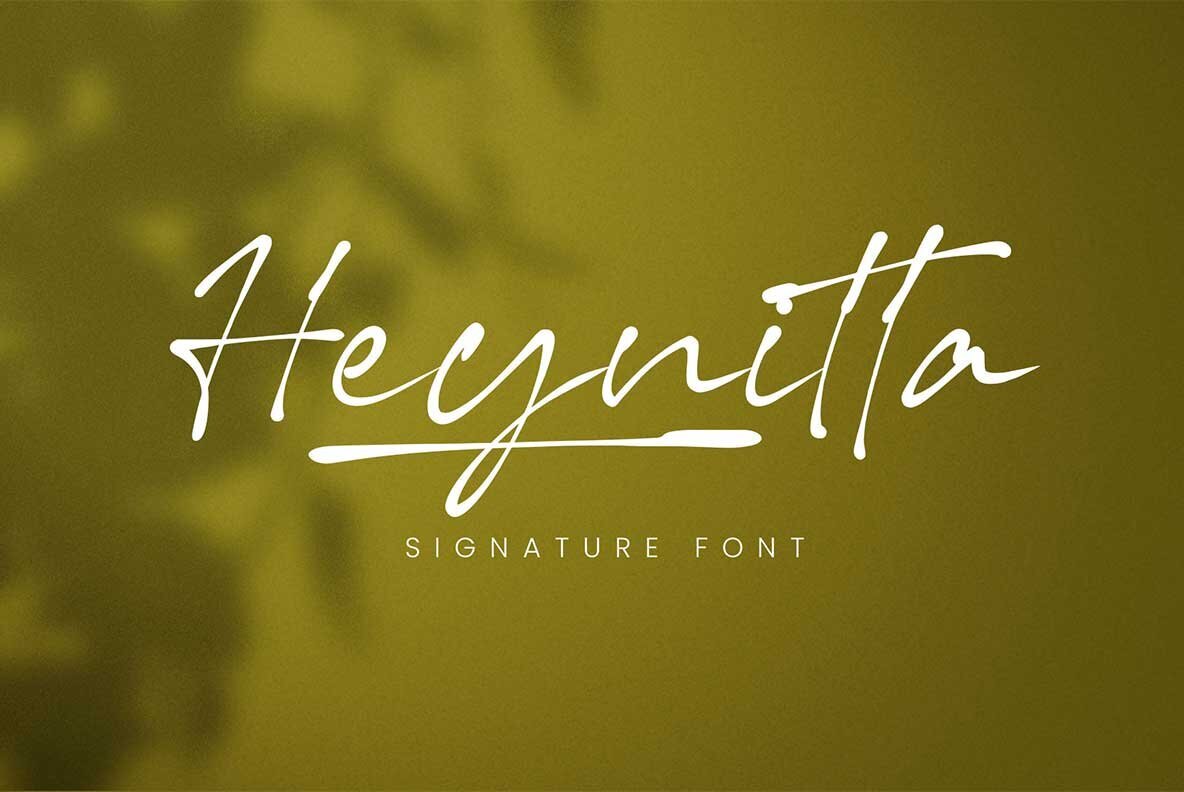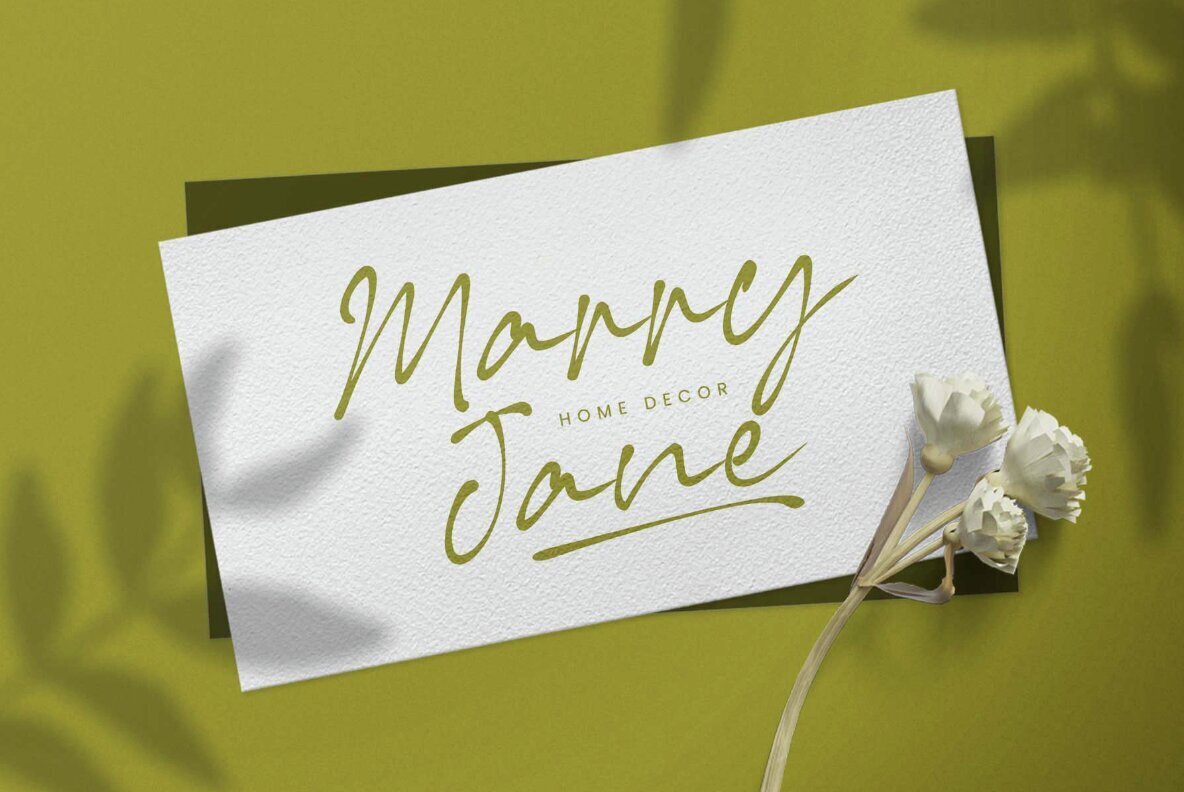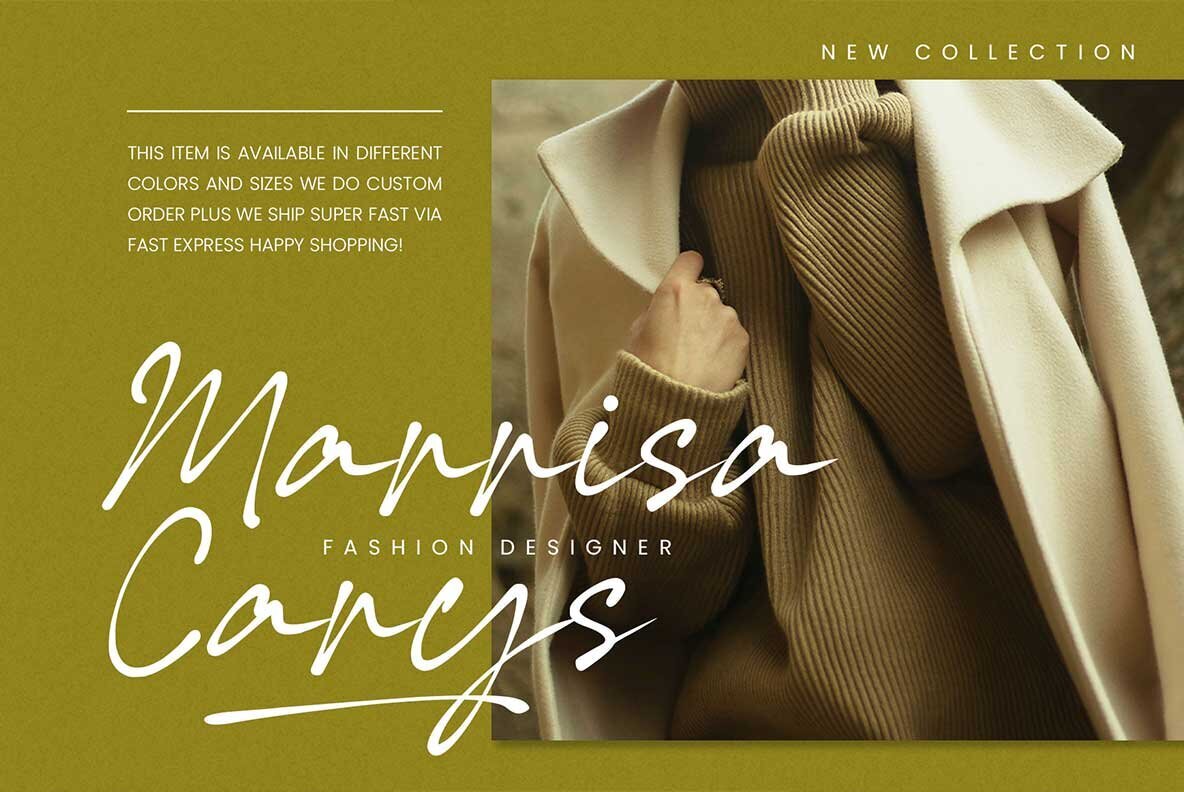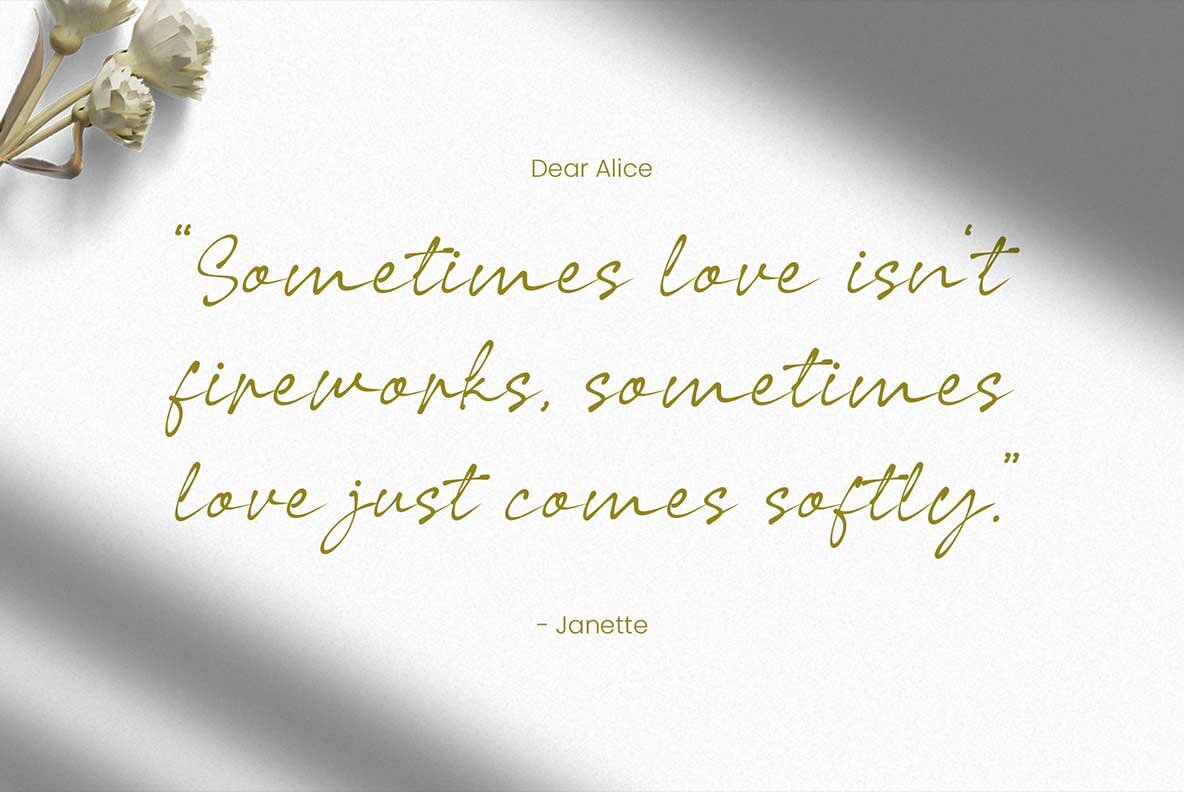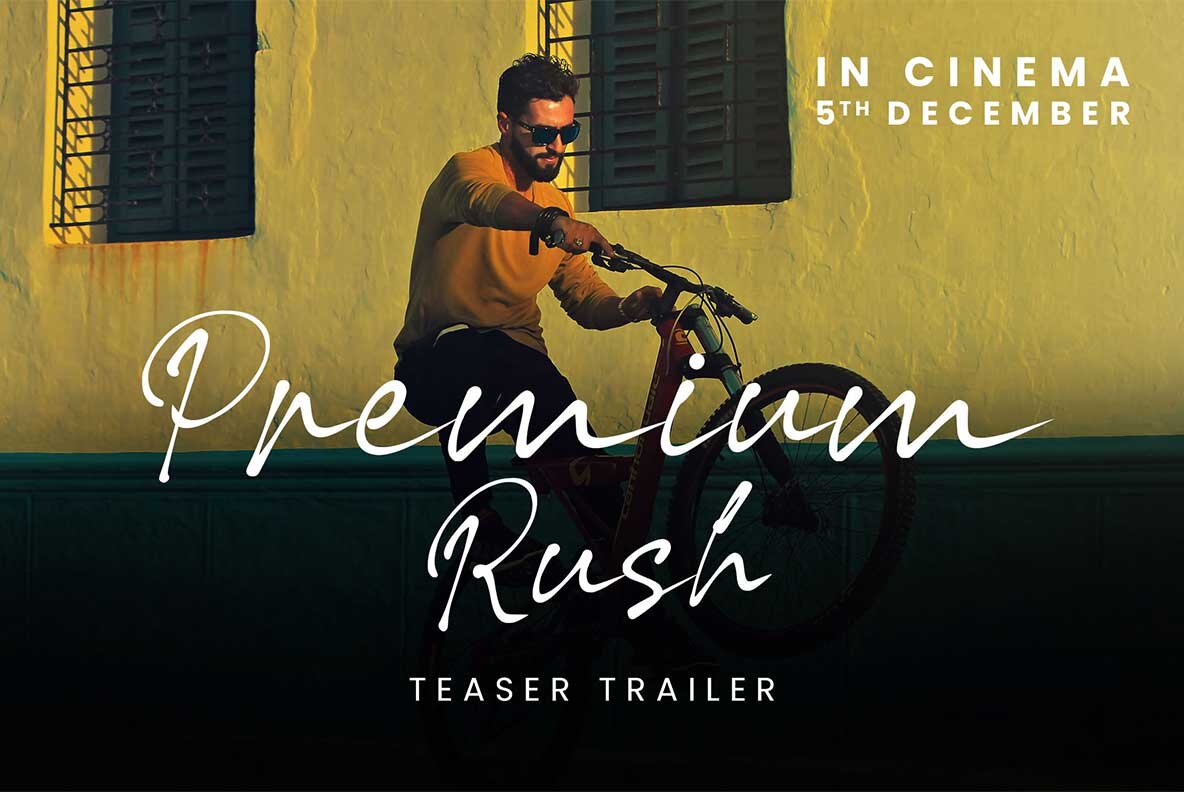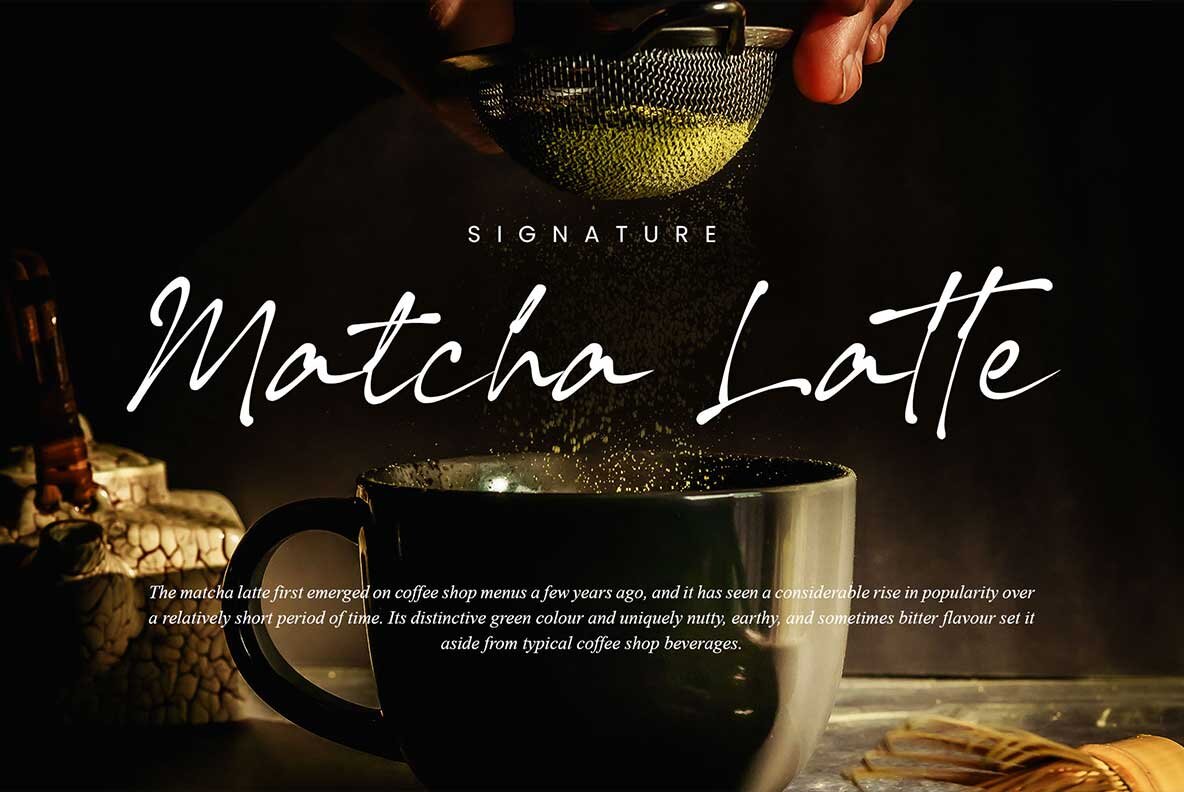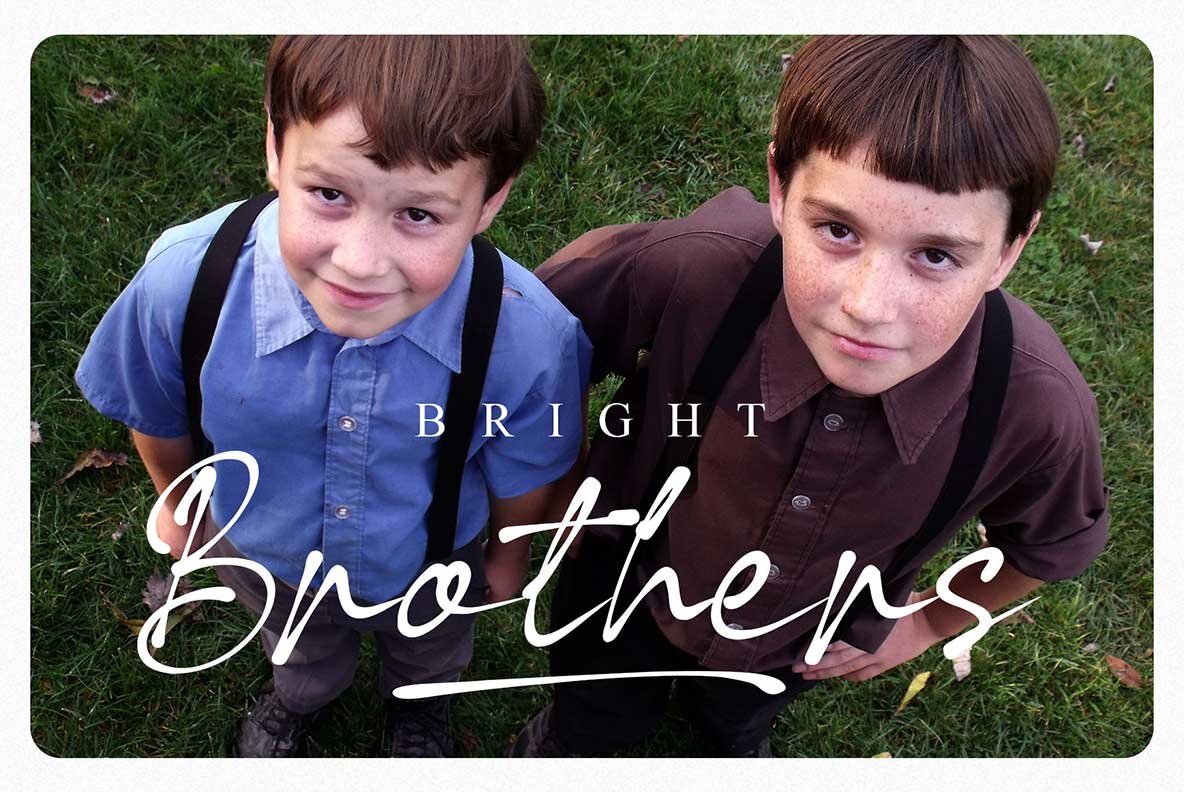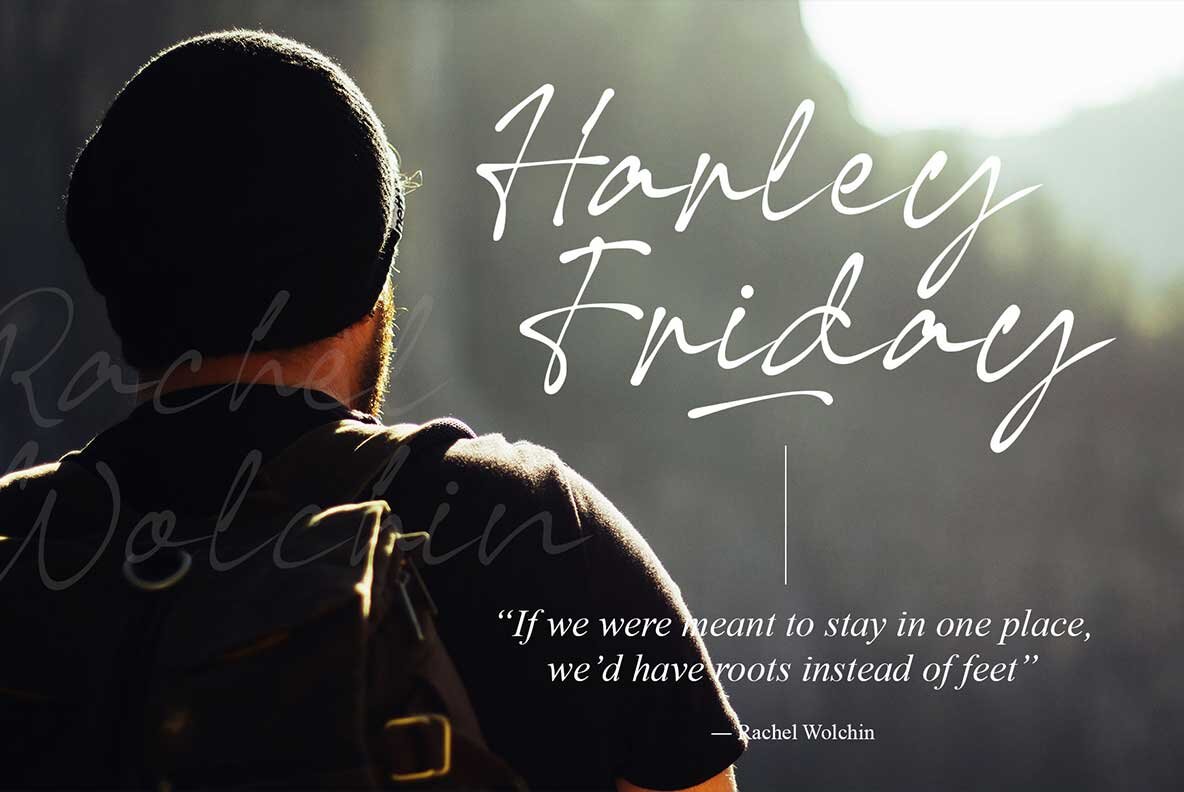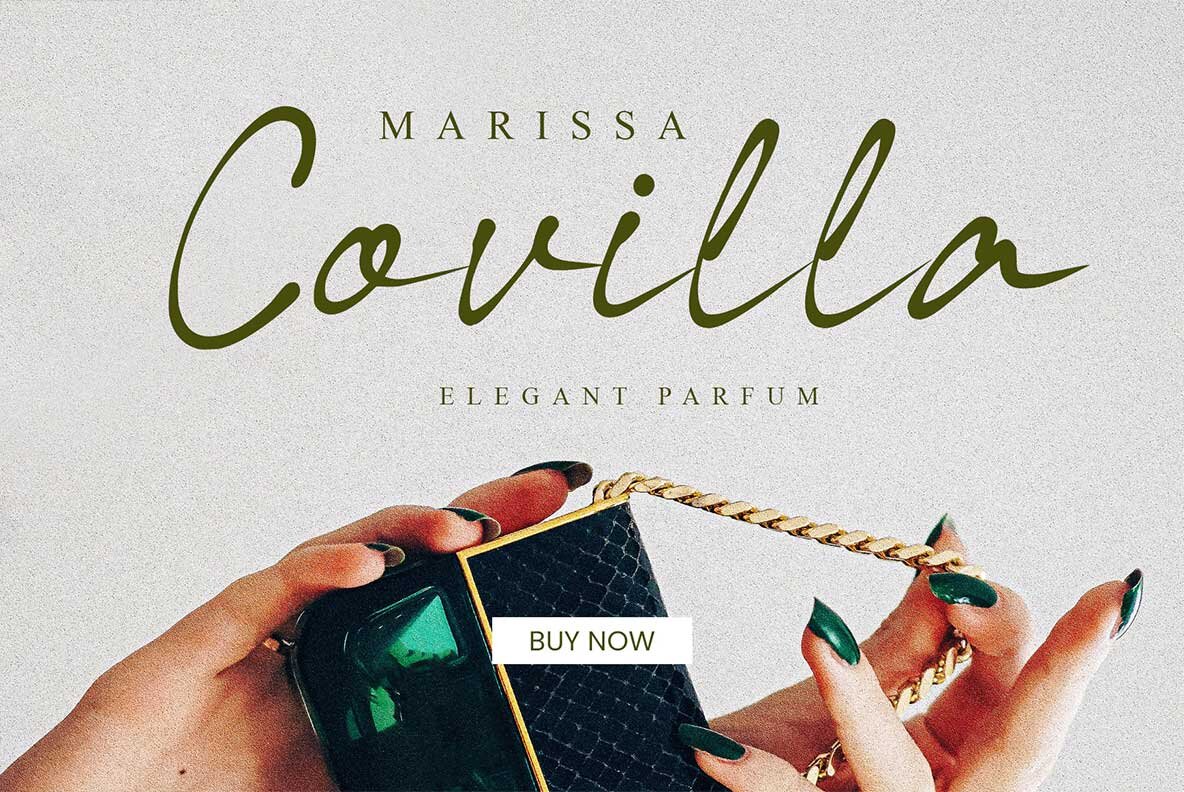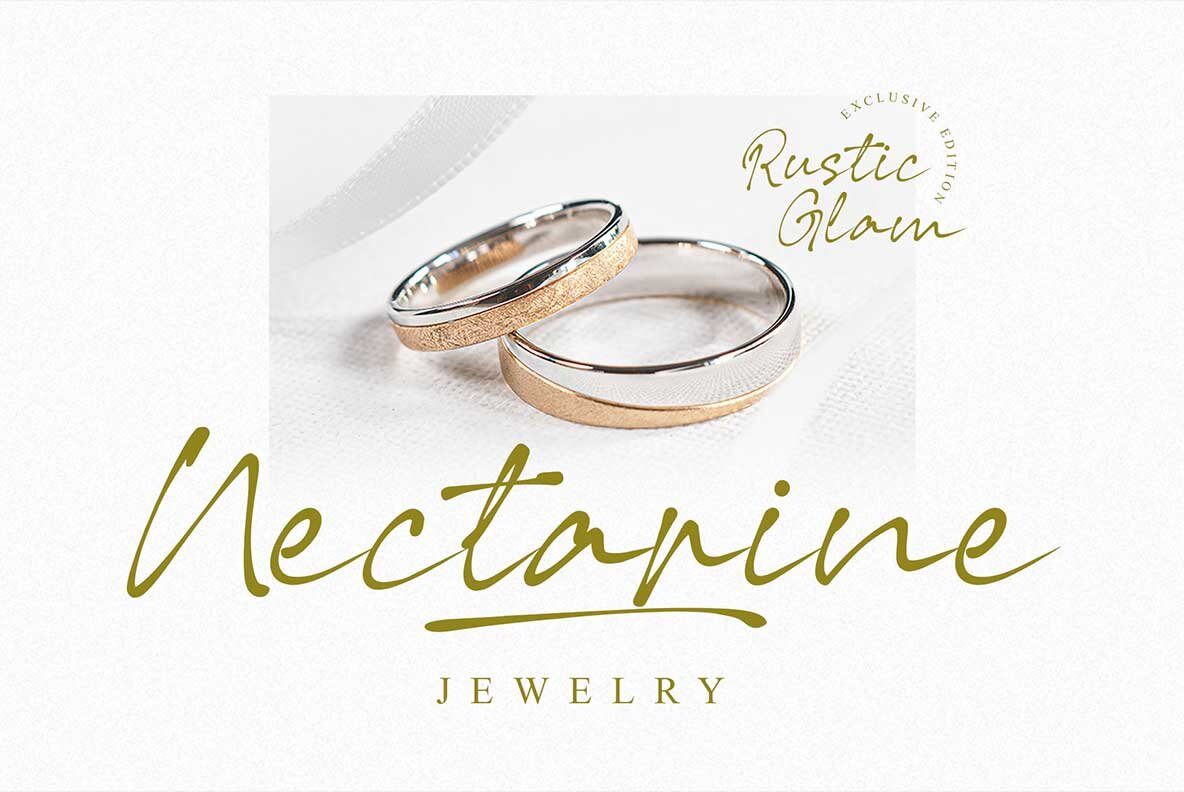
Heynitta Font
Heynitta Regular
Step into elegance with Heynitta, a refined signature font that captures the essence of style through its ink splash design. Radiating a sense of dynamism and sophistication, Heynitta is perfect for enhancing elegant ventures. Ideal for fashion, inspirational quotes, and upscale branding, this font brings a touch of class wherever it’s applied. Experience the graceful flow of Heynitta in all your creative projects and celebrate the art of typography at its finest.Heynitta: Classy Signature Font
Versatile and Elegant